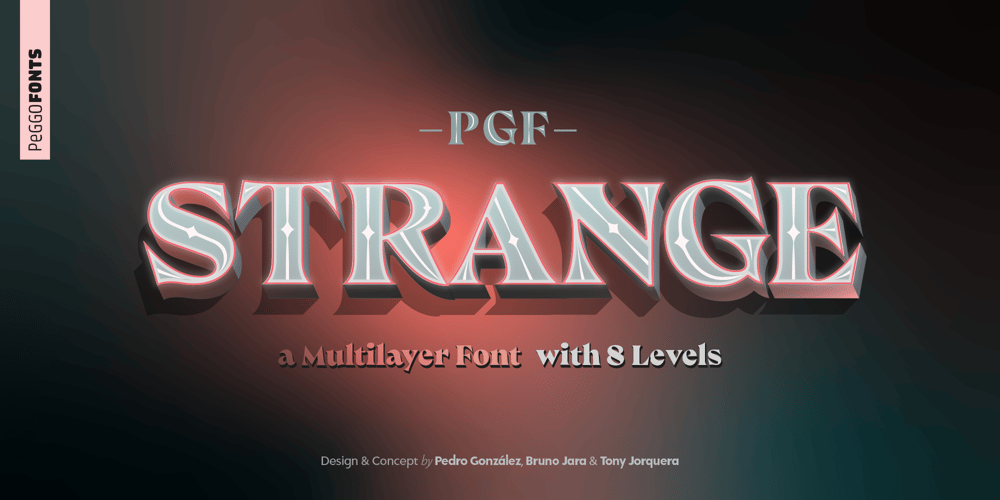
PGF Strange
PGF Strange font
PGF Strange Font Family was designed by Pedro Gonzalez Jorquera, PeGGO Fonts and published by PeGGO Fonts. PGF Strange contains 8 styles and family package options. Multilayer Roman font with 8 levels, inspired on ’70-80s, it wears sharp edges and compact proportions, with a way fresh contemporary retro volumetric style, ideal for branding & packaging, logotype, headlines, covers, sign letters, label, ticket design, and even 3D lettering.It contains a variety of design resources like stylistic alternates, sensitive case adaptations, old-style numbers, fractions, ordinals, ligatures, localized forms, all of them are accessible via character set panel.Design period: 2019 & 2021.Release: 2021Graphic interpretation: Pedro GonzálezConcept: Bruno JaraDevelopment: Peggo Fonts Foundry.